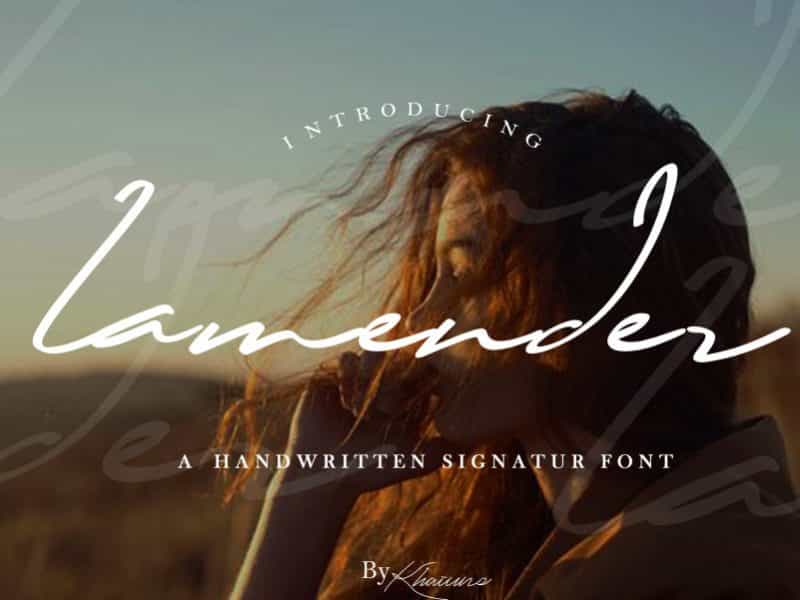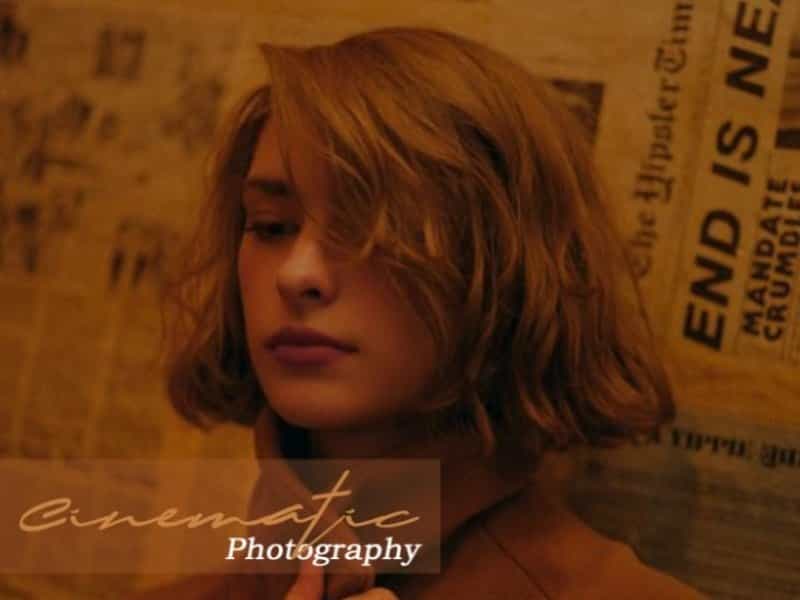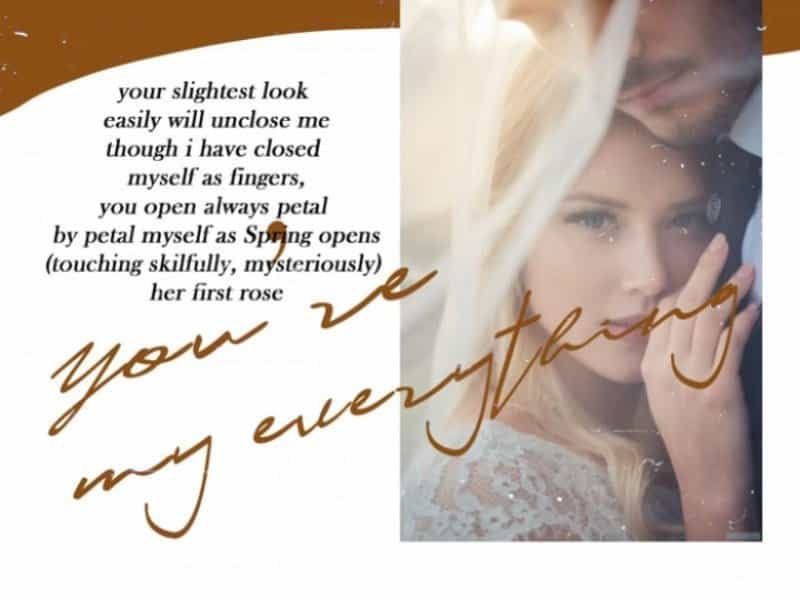
Discover Lamender Handwritten Font, part of the Calligraphy Handwritten collection—a versatile and unique font perfect for adding a personal touch to your projects. Download it for free and enjoy crafting designs with style, from invitations to social media posts. This font is available exclusively for personal use, giving you the freedom to create without limits. Unlock your creativity with Lamender Handwritten Font today!
It’s a fun and cool script font with a light touch, which will give any design a charming feel. It is created by Khaiuns for the purpose of sharing it to the public and can be acquired for free but for personal use only. The free version comes with both the capital and the small letters and just a few symbols and signs.